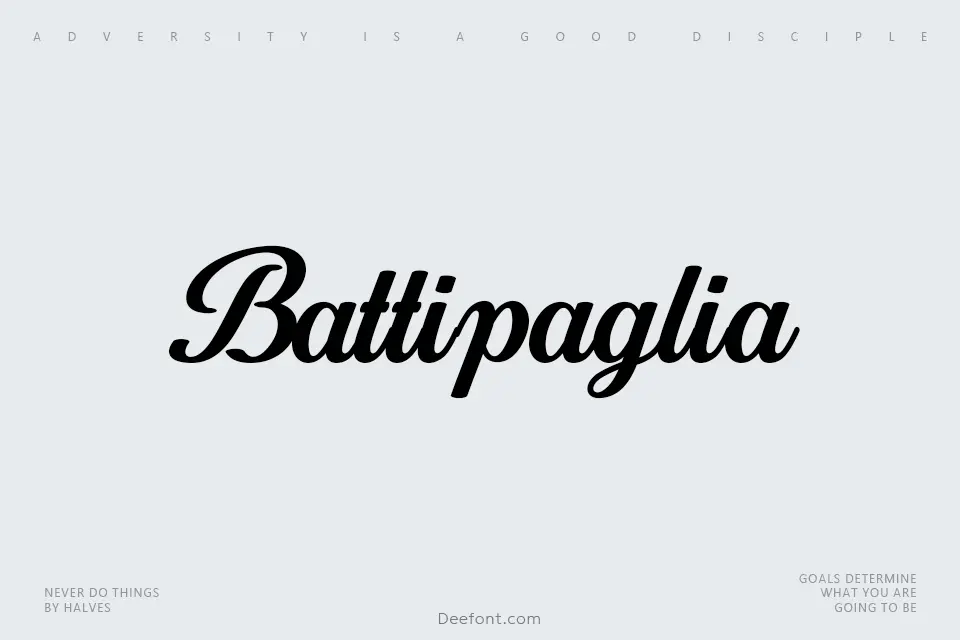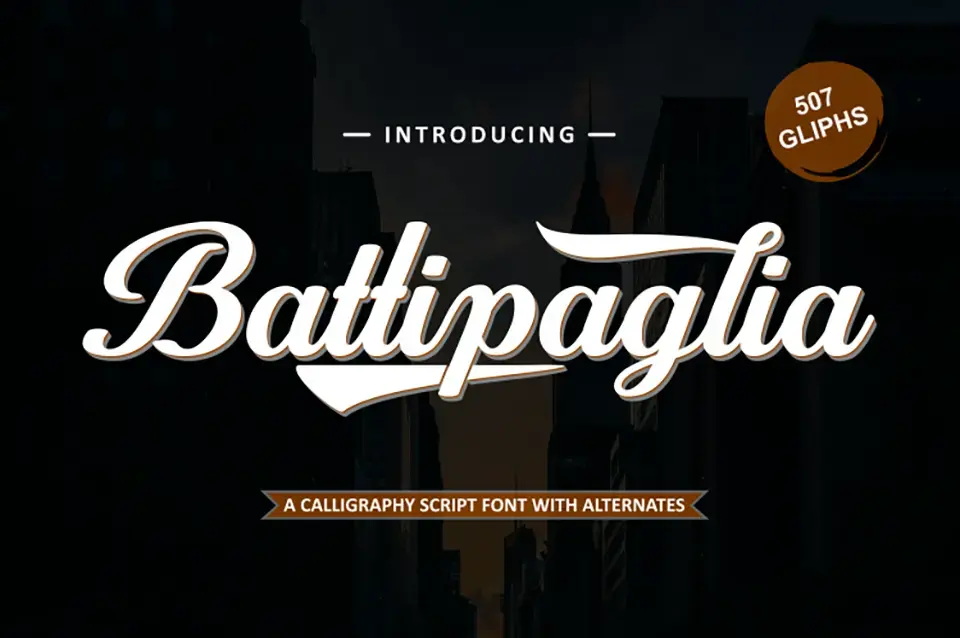
Battipaglia Font
Battipaglia Font is a sophisticated old-school script typeface designed with calligraphic elegance and modern sensibility. Featuring flowing letterforms and vintage-inspired strokes, this font combines classical beauty with contemporary style. Each character flows gracefully with smooth curves and balanced proportions, making it ideal for creating elegant wedding invitations, luxury branding, decorative posters, and stylish logo designs. The font’s distinctive calligraphic characteristics bring a refined, hand-lettered quality to any design project requiring visual sophistication and timeless appeal.